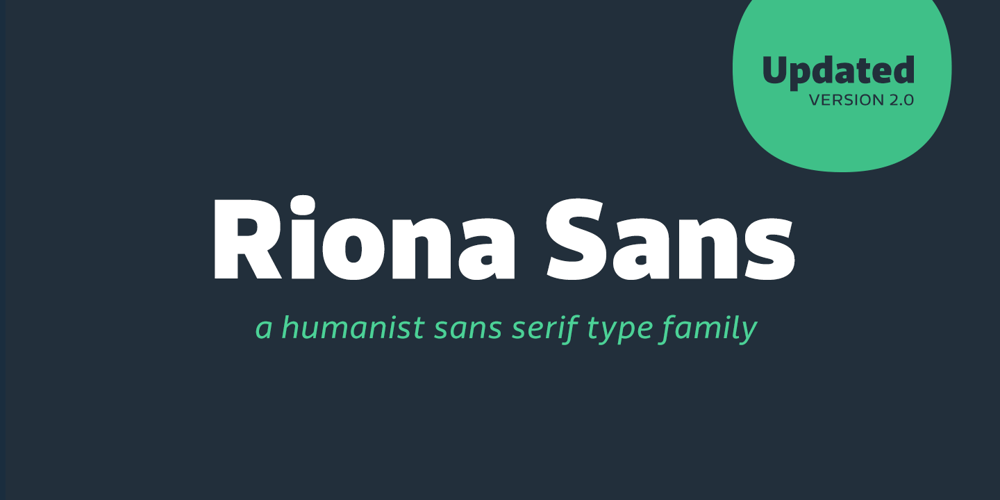
Riona Sans Font Family was designed by published by Melvastype. Riona Sans contains 16 styles and family package options. Riona Sans is a sans serif type family of 16 fonts, including true italics. It can handle every challenge you throw at it. Use it on websites, print, applications, games, logos, packaging, as a brand font: You name it. It looks good at large sizes and remains legible at small sizes. Rely on Riona Sans to convey a mood and make an impact, whether you want to be elegant and subtle, strong and dynamic, friendly or powerful.